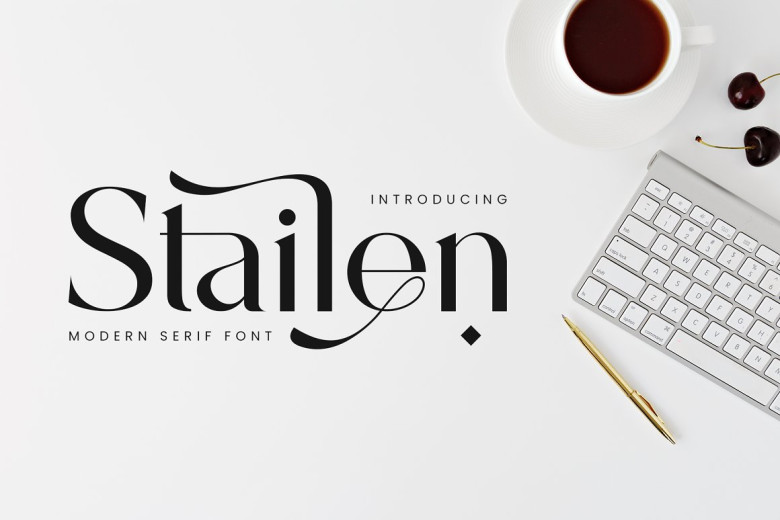
Stailen Font
Stailen Serif is a stylish, refined, and fashionable serif font with gorgeous characteristics that is ideal for invitation cards, corporate logos, movies titles, books, business cards, titles brands and many other designs.
Stailen Serif can be described as a soft serif typeface that exudes sophistication and class; its elegant variations and ligatures make this font the ideal partner in any project.
Stailen Serif Font